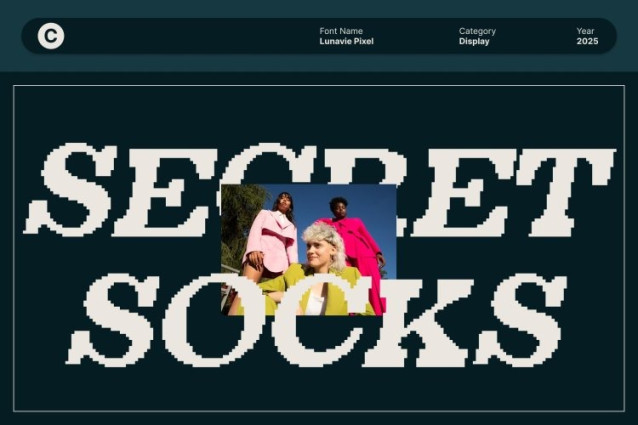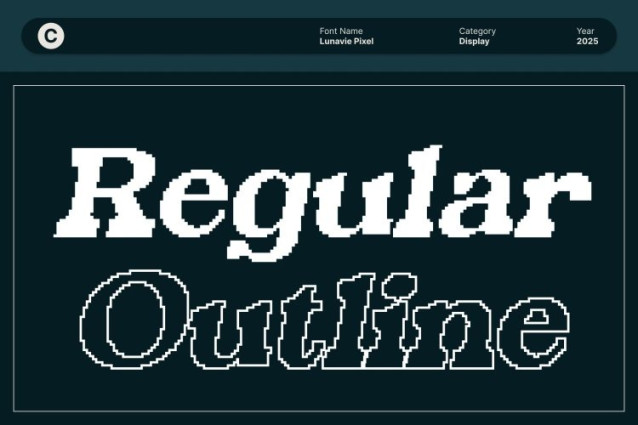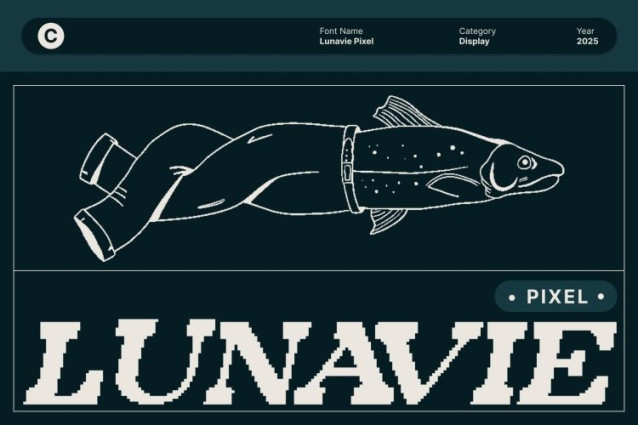
Lunavie Pixel Font
Lunavie Pixel Font This is a bold serif display font crafted with clean, slender lines that bring a sophisticated and professional presence to any design. Its elegant proportions create a timeless visual appeal, making it an excellent choice for branding, posters, editorial layouts, and projects that demand refined and stylish typography.
Pixel Texture for a Modern Digital Personality
Enhanced with an expressive pixel texture, this font infuses classic serif structure with a contemporary digital twist. The pixel detailing adds personality, depth, and a unique sense of character transforming traditional elegance into a modern, creative statement suitable for digital-forward branding and artistic layouts.
Bold Yet Graceful for Clear Visual Impact
While bold and confident, this font maintains a graceful flow thanks to its slender strokes and balanced serif shapes. This harmony ensures strong readability and impactful presence, whether used in large titles, logotypes, or editorial headlines. Its refined structure helps convey authority, trust, and polished aesthetics.
Perfect for Branding, Posters, and Editorial Design
From luxury branding to magazine spreads and stylish posters, this font offers the perfect blend of timeless design and expressive artistry. Its unique combination of classic serif elegance and pixel-driven texture makes your work stand out with sophistication, modernity, and unmistakable visual charm.